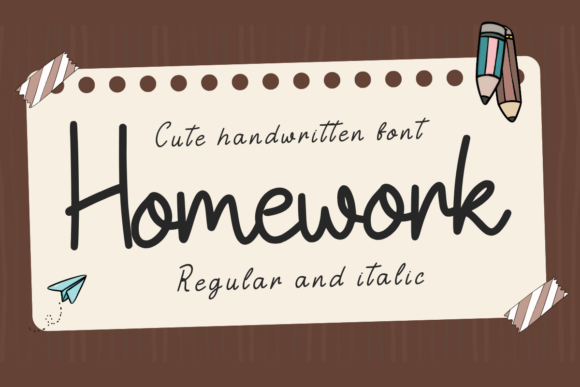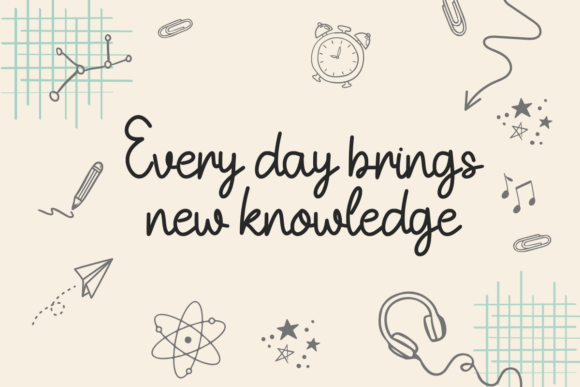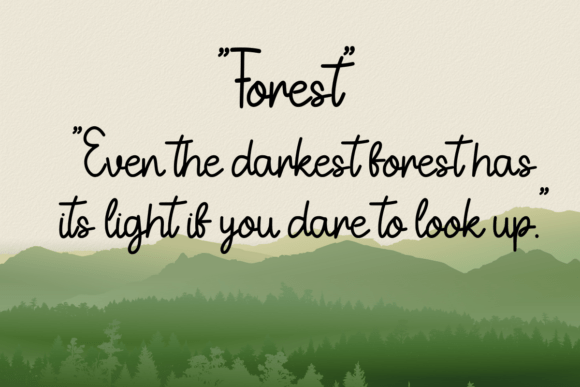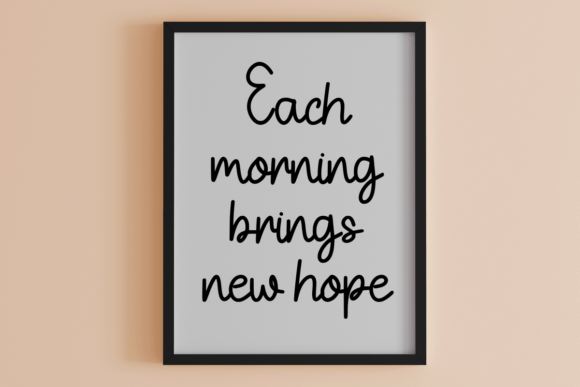
Homework Font: A Cute Handwritten Display Font for Cricut Crafts
About the Homework Font
Introducing the Homework Font, a beautifully crafted typeface designed to elevate your creative projects. Homework is a cute handwritten font with a playful and natural touch, perfect for educational designs, classroom decorations, greeting cards, and social media content. Comes in Regular & Italic, it’s easy to pair and ideal for any fun project.
Homework’s playful energy makes it ideal for children’s books, branding for educational toys, or playful social media posts. It works well in headlines, short paragraphs, and packaging designs where its handwritten charm adds a friendly touch. However, its informal style is less suitable for large bodies of text or formal documents. Avoid using it for UI elements or situations requiring high readability.
Pairing Homework with a clean sans-serif like Open Sans for body text creates a balanced and effective contrast. For a more sophisticated look, consider pairing it with a delicate serif font such as Lora. If a more playful aesthetic is desired, a rounded geometric sans-serif like Nunito Sans would also complement its character nicely.
The font projects a friendly, approachable, and slightly whimsical personality, making it well-suited for brands targeting a younger audience or those emphasizing creativity and fun.
Homework Font Usage Examples
Homework Font Example